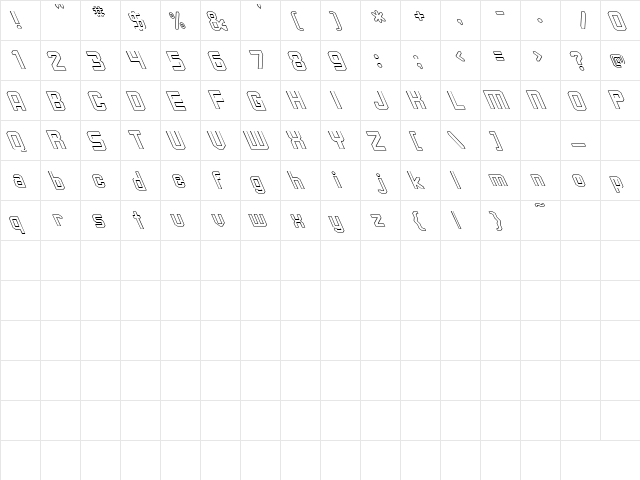
Upsilon Hollow Extreme Lefties Regular
Design Context for Upsilon Hollow Extreme Lefties Typeface
Upsilon Hollow Extreme Lefties offers clean, dependable letterforms without strong stylistic allegiance, making it a practical choice for designers who need flexibility.